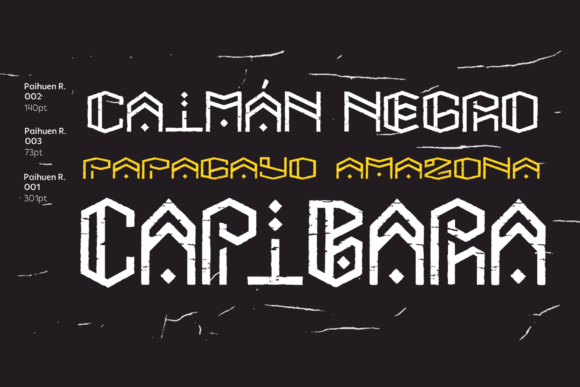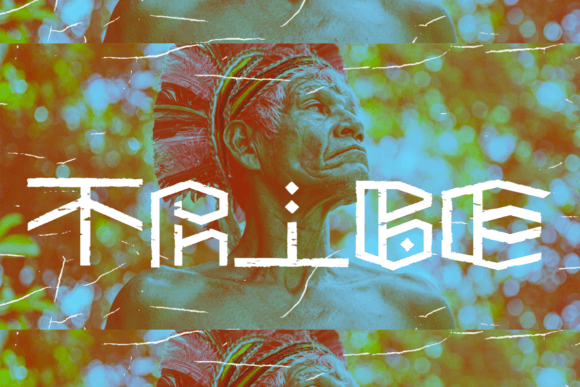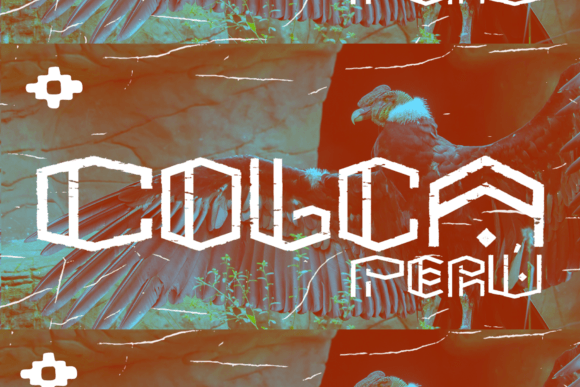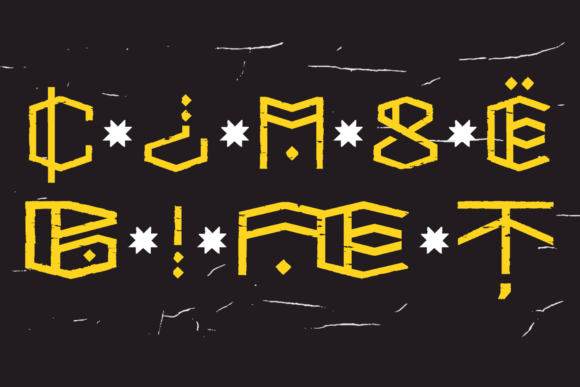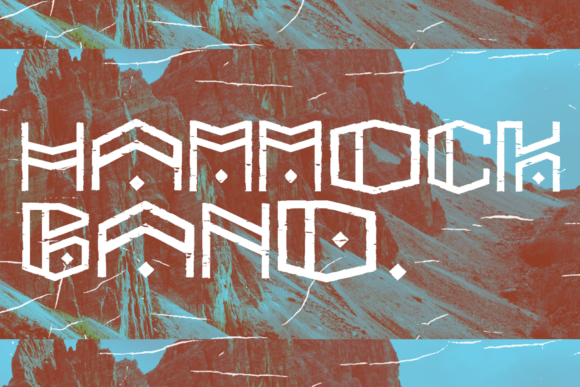
Introduction to Paihuen Rough Font
Have you ever been stuck on a design project, struggling to find the perfect font to give it that extra oomph? You’ve spent hours scrolling through design resources, searching for the perfect combination of style and character. For many designers, this is a familiar scenario – and it’s where the Paihuen Rough Font comes in.
This unique sans-serif font has been a game-changer for creatives, offering a distinctive and rustic aesthetic that’s perfect for adding a touch of personality to any project. With its rough edges and uneven lines, Paihuen Rough Font is the perfect choice for designers looking to add a bit of texture and authenticity to their work.
Key Features of Paihuen Rough Font
- High-quality design resource ideal for creative projects, offering a unique, hand-drawn aesthetic.
- Includes multiple styles and weights to cater to diverse design needs, from bold to delicate.
- Designed with a high resolution, ensuring crisp and clear rendering in various sizes and resolutions.
- Perfect for use in graphic design, digital art, and other creative endeavors that require a distinctive, hand-crafted look.
Honest Review: Paihuen Rough Font
I recently came across the Paihuen Rough Font and I’m excited to share my honest thoughts on this design resource.
What works well is the font’s versatility. It has a unique, hand-drawn feel that makes it perfect for creative projects that require a personal touch. The high quality of the font is also impressive, making it suitable for a wide range of applications, from print to digital media.
- ✨ Unique, hand-drawn feel
- ✨ High quality, suitable for various applications
However, there are some limitations to consider. The font may not be ideal for projects that require a clean, minimalist aesthetic. Additionally, the transparent background option may not be suitable for all design situations.
- ⚠️ May not be suitable for minimalist designs
Overall, I’m impressed with the Paihuen Rough Font. It’s a great addition to any designer’s toolkit, and its free download option makes it an excellent choice for creative projects on a budget.
Paihuen Rough Font is a unique design resource ideal for creative projects requiring a high-quality, bold font. To use it effectively, consider the following steps:
For optimal results, use the font in conjunction with complementary design elements, such as bold colors or contrasting backgrounds.
Experiment with different font sizes and styles to achieve a unique visual effect.
Common Use Cases for Paihuen Rough Font
Paihuen Rough Font is suitable for a variety of creative projects, including:
Branding and logo design
Typography-based art
Advertising and marketing materials
Web design and development
Comparison to Paihuen Rough Font: Bangers Font has a more playful and energetic feel compared to Paihuen Rough Font, which is more rugged and edgy.